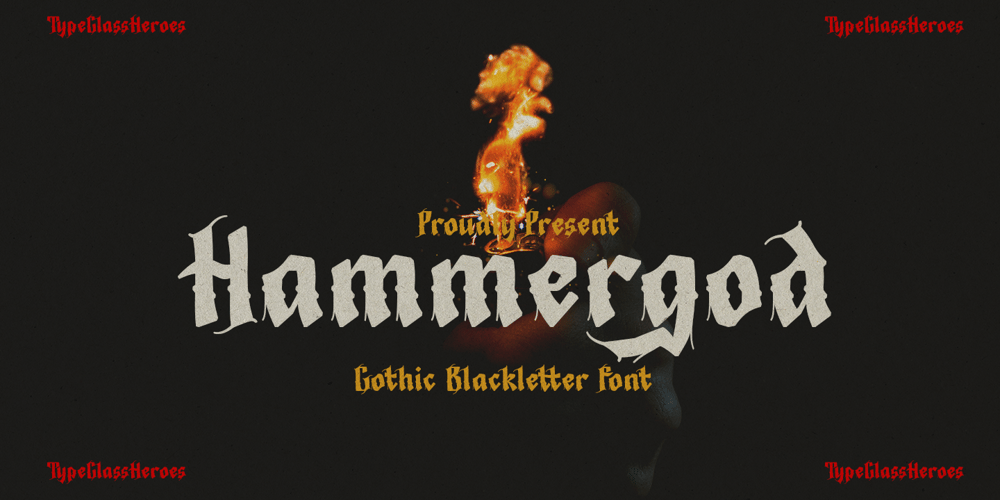
Hammergod Font Family was designed by Suandana ipandemade and published by TypeClassHeroes. Hammergod contains 1 styles and family package options. Really excited to introduce Hammer God is a gothic blackletter font, made with a heavy and metal impression and supported by alternative with references to various letters that I combine. Included: Uppercase & Lowercase Number & Symbol International Glyphs Multilingual Support Alternative Ligature Hope you enjoy it.